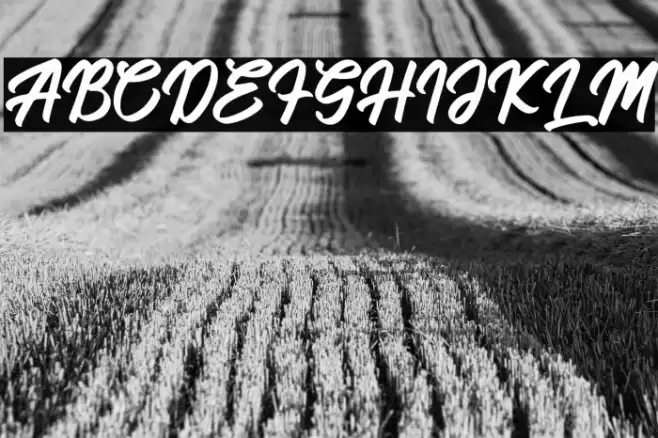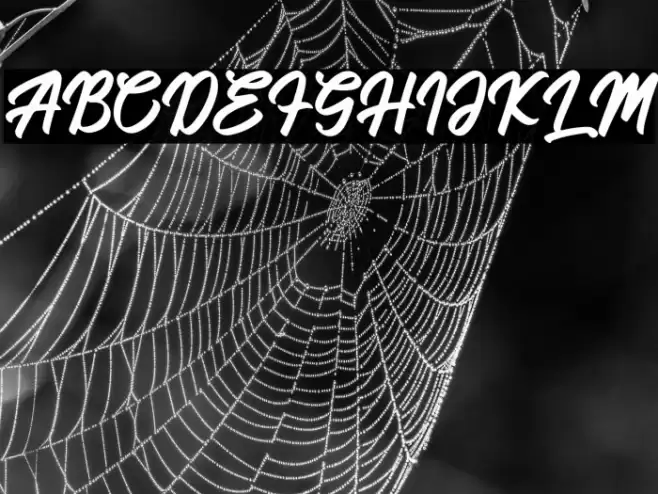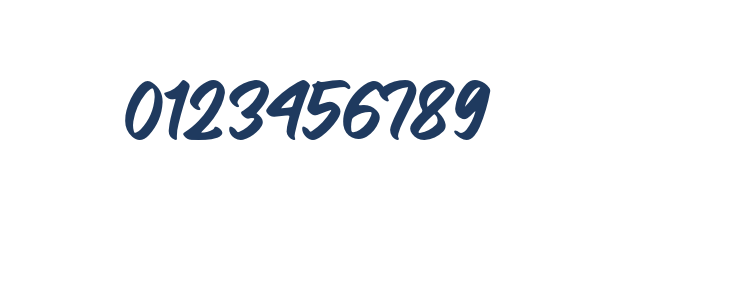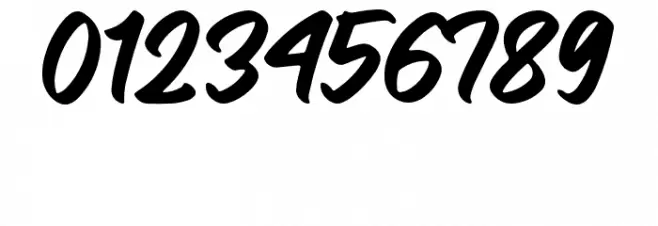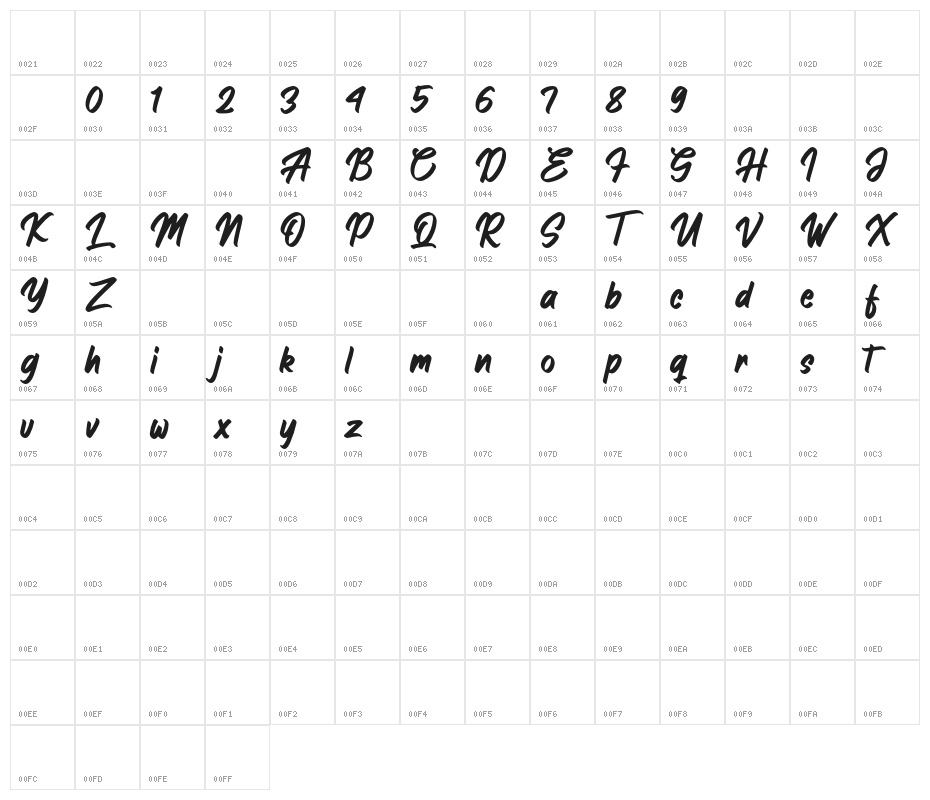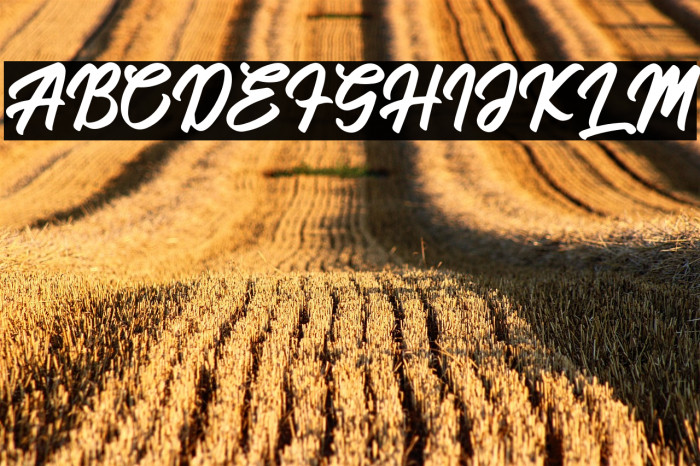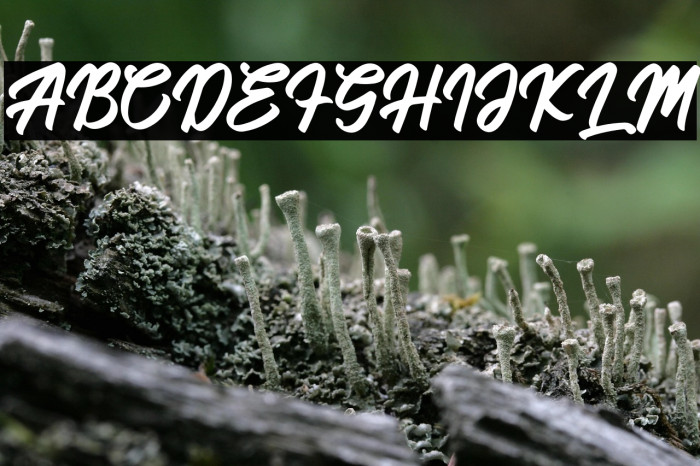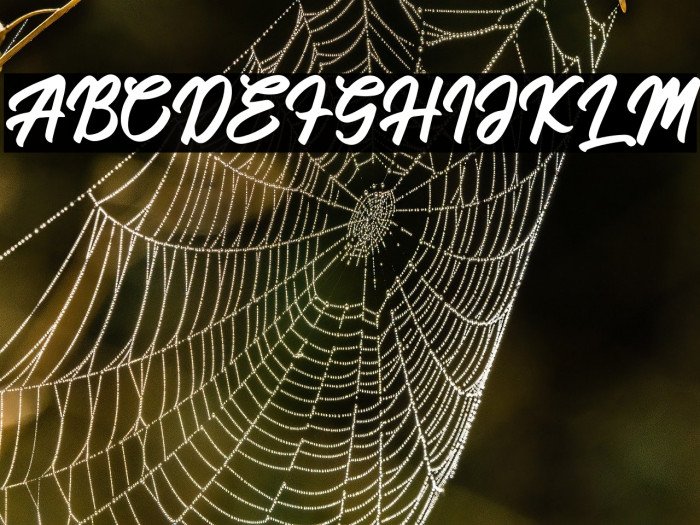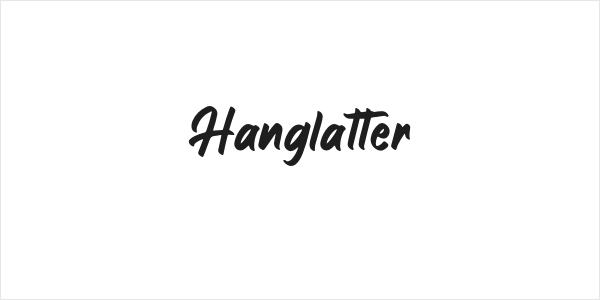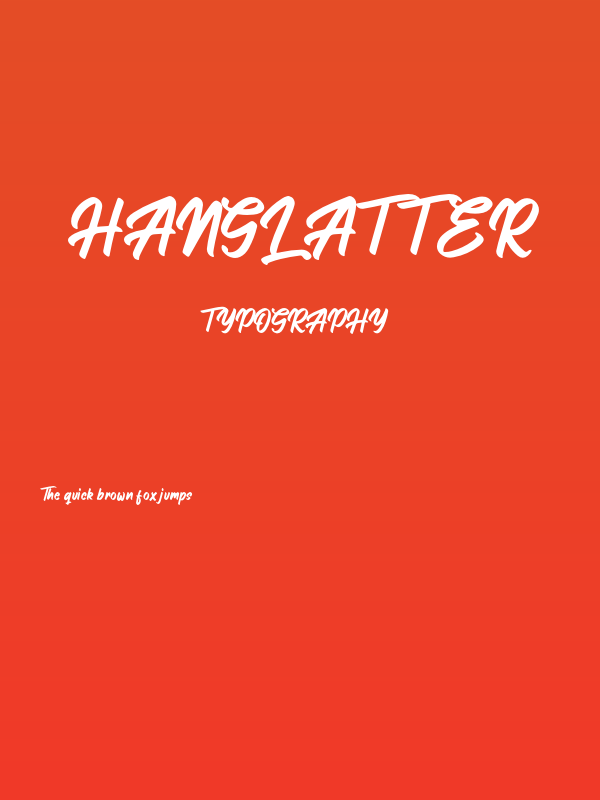
Hanglatter Font
Hanglatter Description
This font features a bold, energetic script style with a handwritten appearance. The uppercase letters are fluid and dynamic, with a slight slant that adds a sense of motion and liveliness. The lowercase letters maintain the same boldness, with rounded edges and smooth curves that enhance readability. The numbers are consistent with the overall style, offering a playful yet clear presentation. Special characters are integrated seamlessly, maintaining the font's cohesive look. This font is ideal for projects that require a personal touch, such as invitations, branding, or creative advertising.
A bold, energetic script font with a handwritten style from Uncategorized fonts.
- Font: Hanglatter
- Proposed Projects: Ideal for invitations, branding, creative advertising, and any project needing a personal touch.
- Overall Style: Modern, Decorative
- Use Case: Logos, Headlines, Invitations